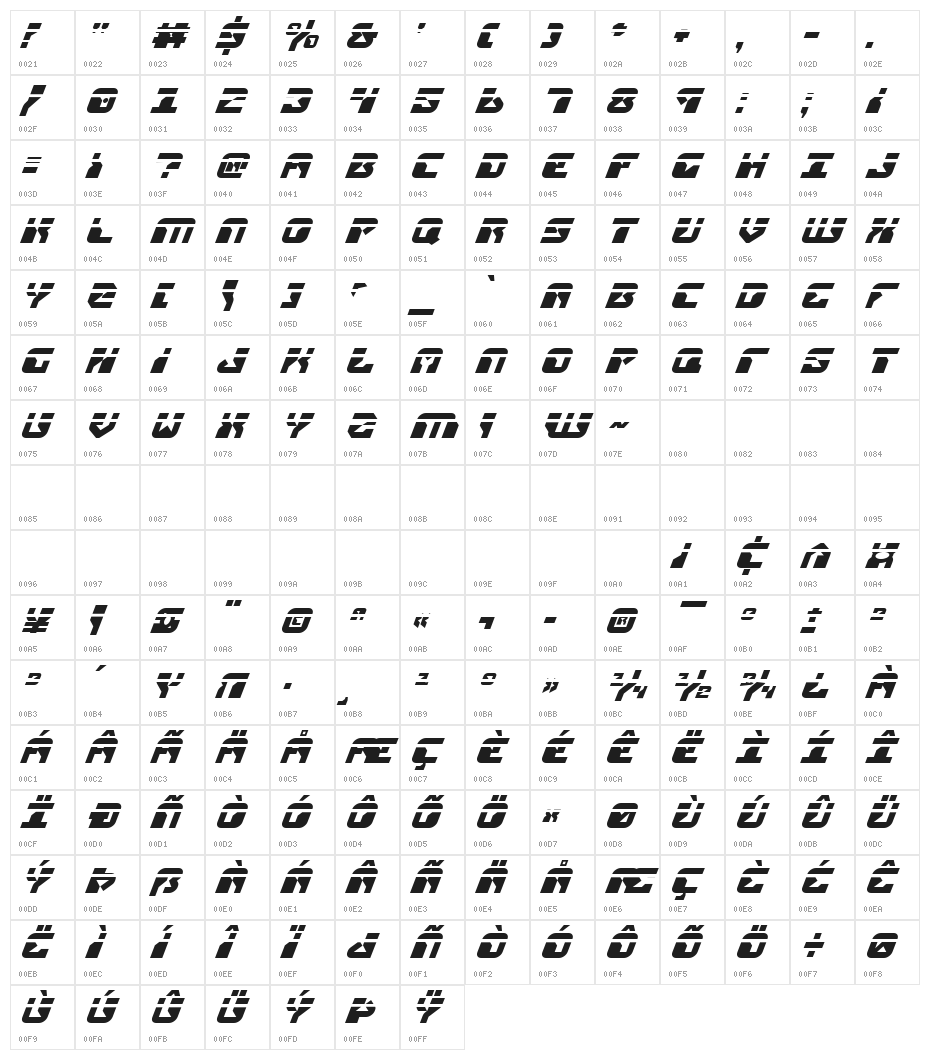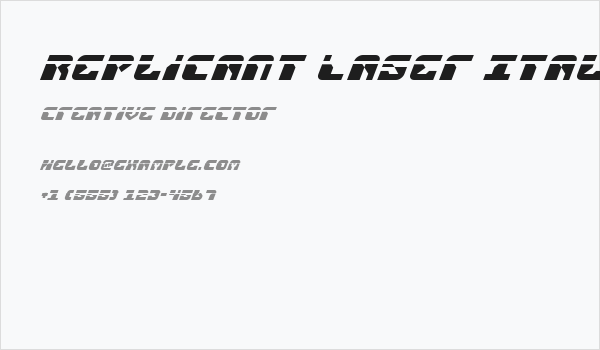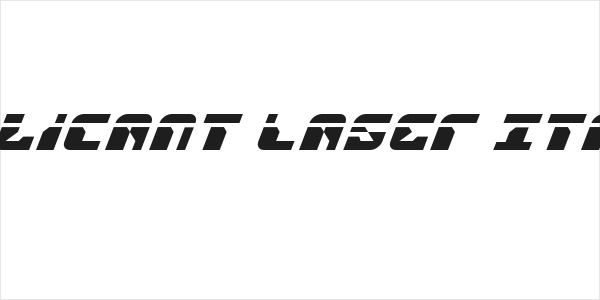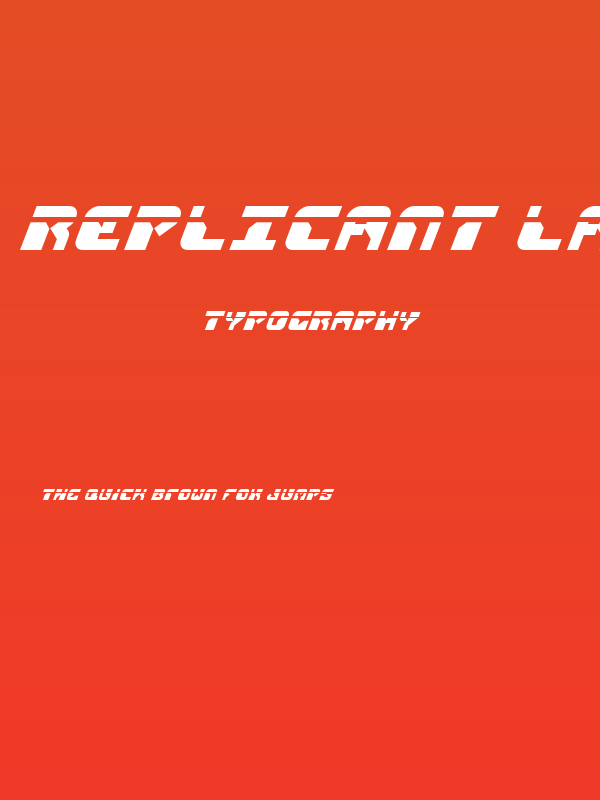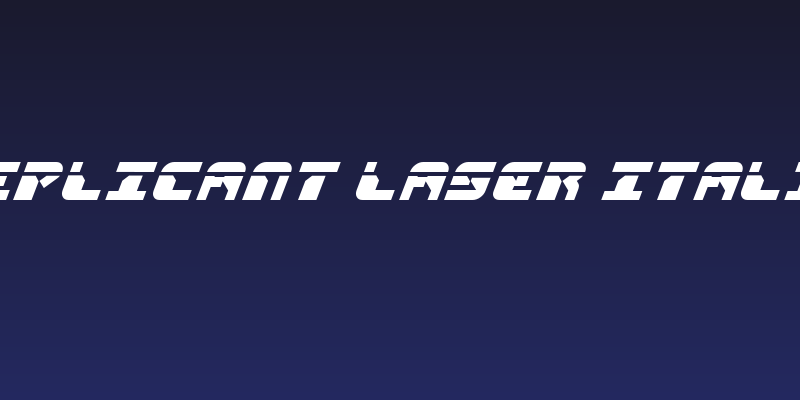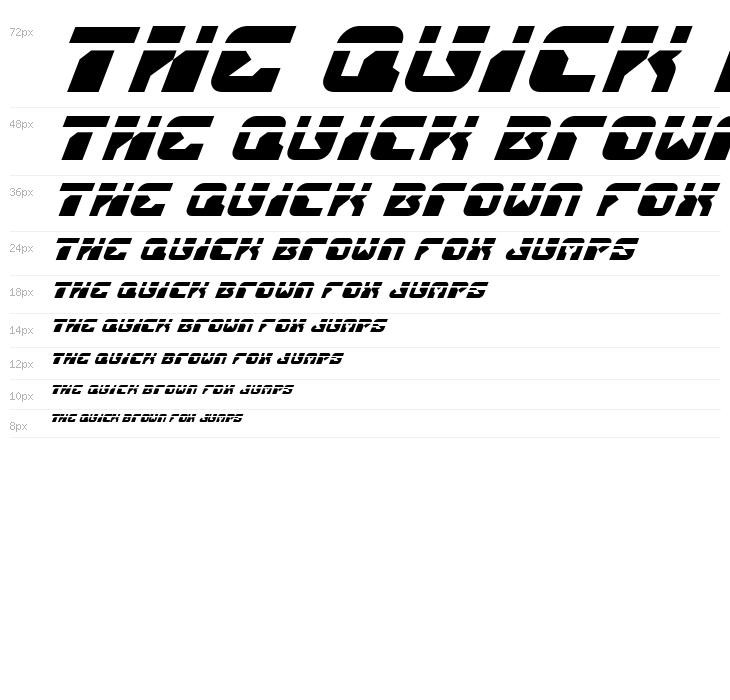
Replicant Laser Italic Font
Replicant Laser Italic Description
This font features a futuristic and angular design, characterized by sharp edges and a slanted, italicized form. The letters are bold and have a distinct geometric style, with cut-out sections that give a dynamic and high-tech appearance. The uppercase and lowercase letters maintain a consistent style, creating a cohesive look across the alphabet. Numbers and special characters are designed with the same angular and bold characteristics, ensuring uniformity. This font's unique style makes it stand out, ideal for projects that require a modern and edgy aesthetic.